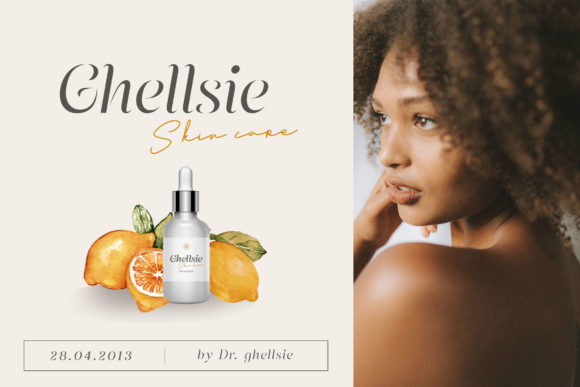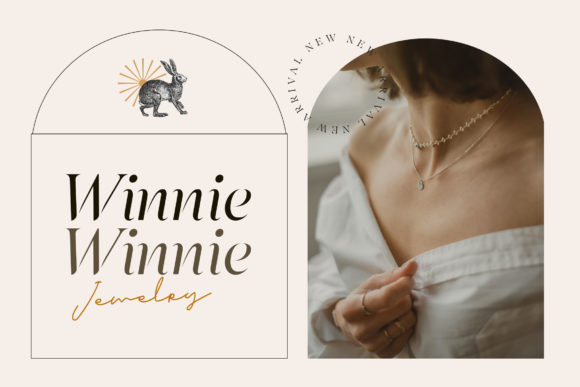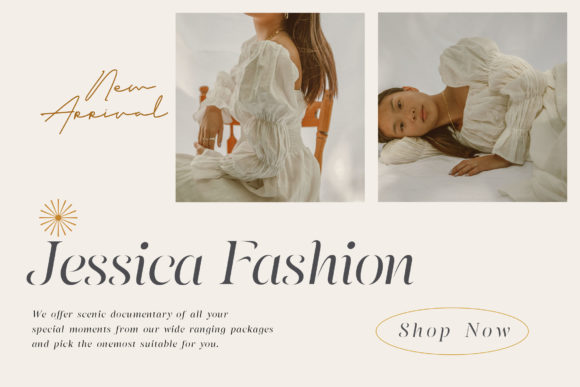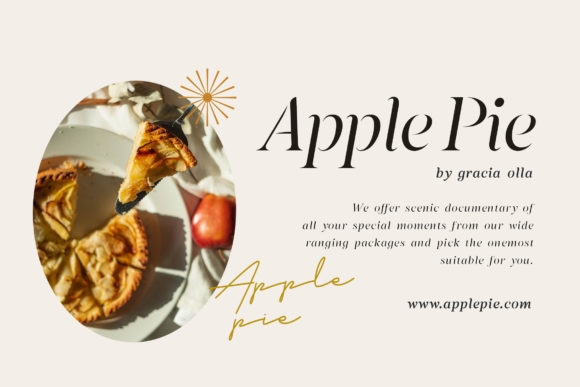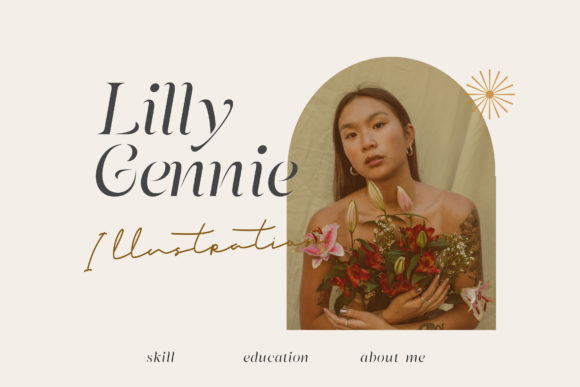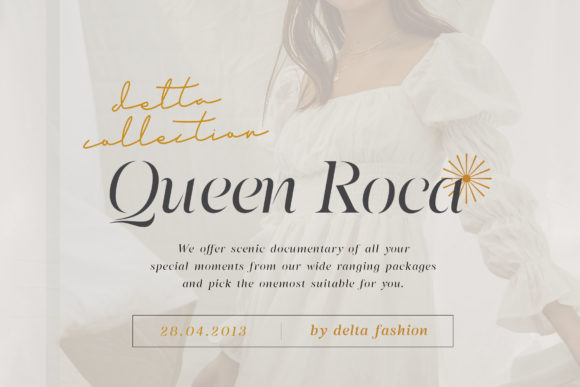
Introduction to Quindove Font
Have you ever been stuck on a design project, staring at a blank canvas, searching for that perfect font to elevate your creative vision? It’s a moment we’ve all been in, and it’s exactly what led us to discover the breathtaking Quindove Font. This stunning serif typeface is a game-changer for designers, offering a luxurious character that exudes sophistication and elegance.
Imagine a font that’s perfect for creating a sense of high-end luxury, whether you’re working on a logo, branding, or editorial design. Quindove Font is that and more, with its versatility making it a valuable resource for designers. Whether you’re working on a free download project or need a high-quality design element, this font is sure to impress.
- Unique characteristics: Quindove Font features a unique, hand-drawn design that adds a touch of creativity to any project, making it a great choice for designers looking for something new and exciting.
Honest Review: Quindove Font
As a designer, I’m always on the lookout for high-quality design resources to elevate my creative projects. The Quindove Font caught my attention with its unique, elegant design and I was excited to give it a try.
What works well with the Quindove Font is its versatility – it’s perfect for a wide range of creative projects, from branding to editorial design. The font is also available for free download, making it a fantastic design resource for those on a budget. Plus, its transparent background makes it easy to customize and integrate with any design.
Here are some of the key features that make the Quindove Font stand out:
- Unique, elegant design
- High-quality typography
- Only available in a limited range of weights
- May not be suitable for bold, headline-heavy designs
- Can appear inconsistent when used at small font sizes
Overall, I’m impressed with the Quindove Font. While it may not be perfect, its unique design and high-quality typography make it a valuable addition to any designer’s toolkit. With a little creativity, you can overcome its limitations and achieve stunning results. ✨
Common Use Cases for Quindove Font
Quindove Font is perfect for a variety of creative projects, including logos, typography-based designs, presentations, and documents. Its high-quality design makes it an ideal choice for both personal and professional use cases.
Yes, the Quindove Font is suitable for both print and digital projects. Its high-quality design and transparent background make it an ideal choice for a wide range of creative projects, from business cards and brochures to websites and mobile apps.